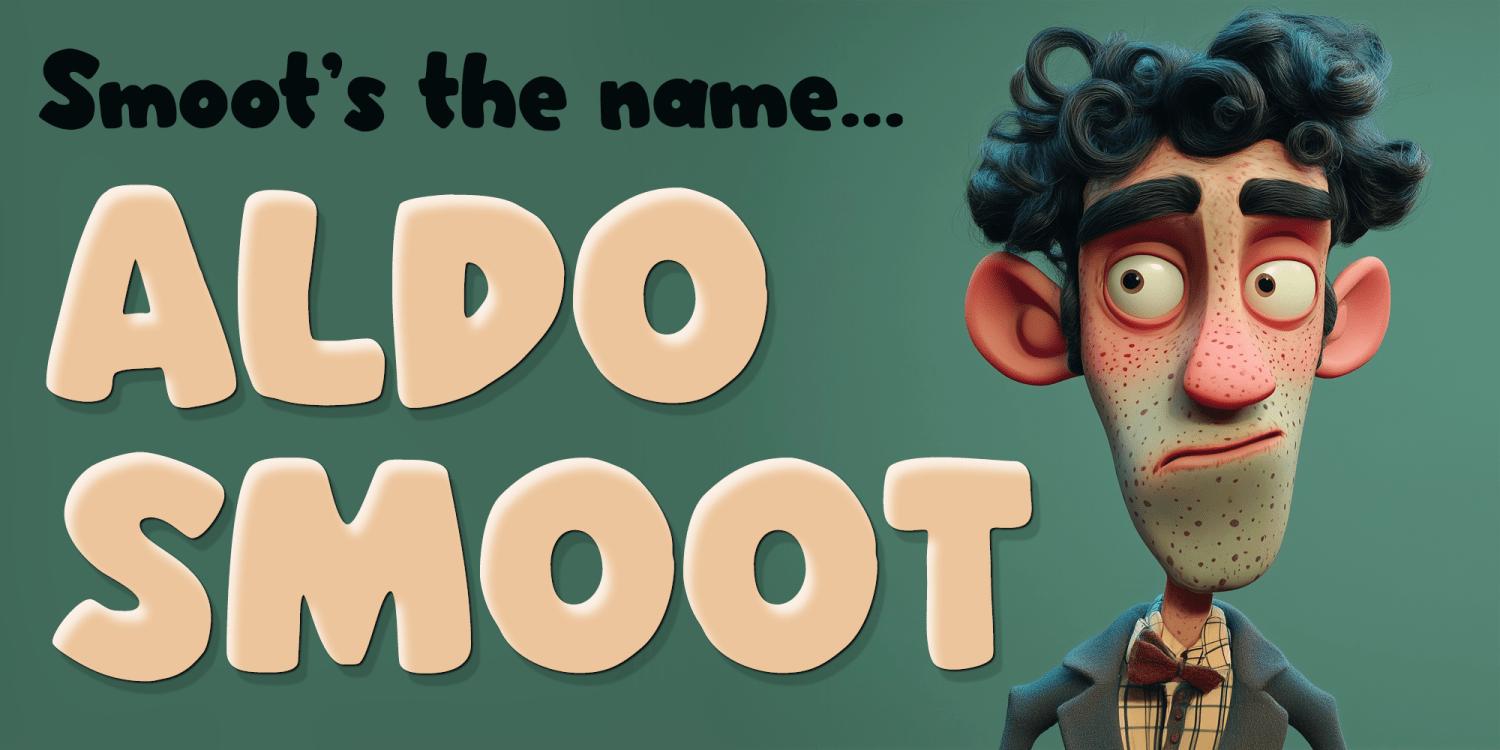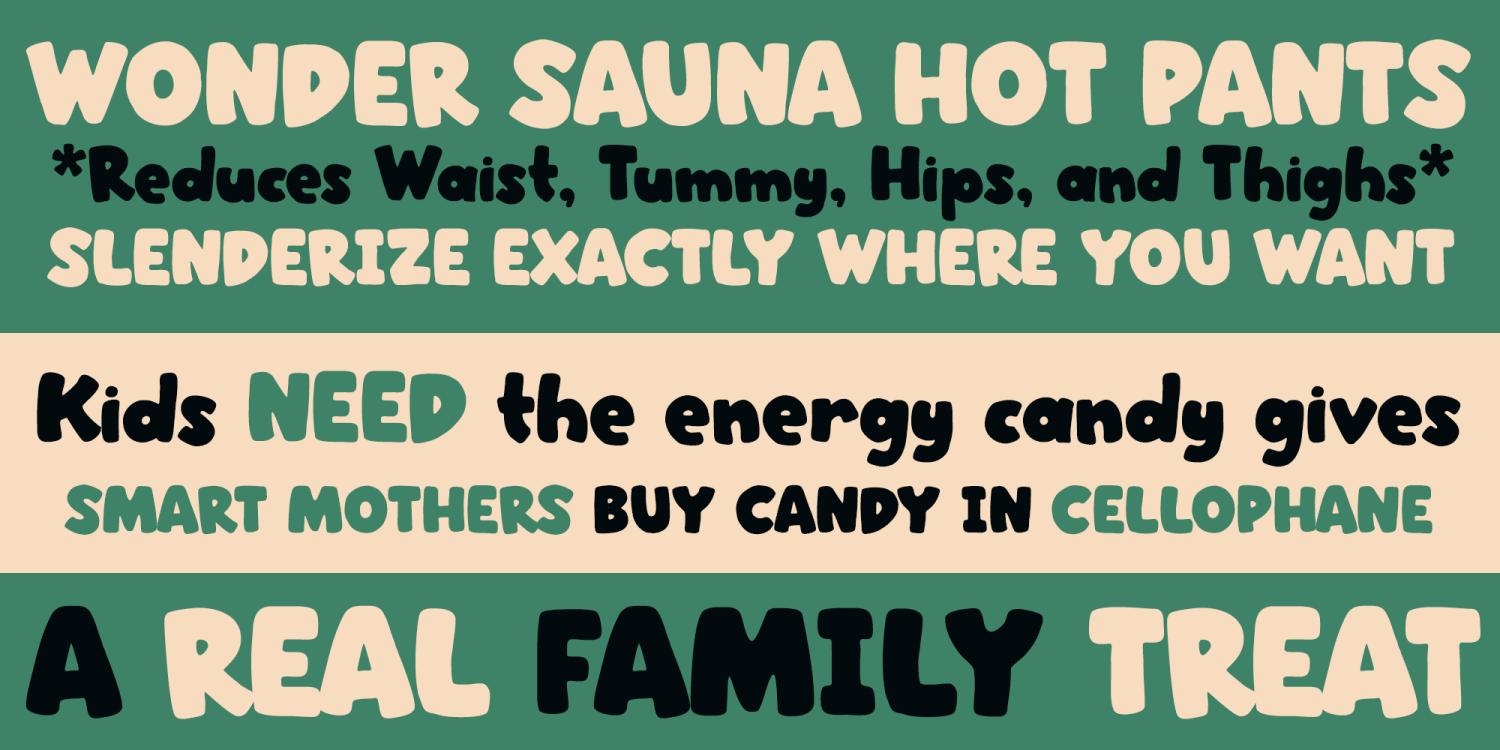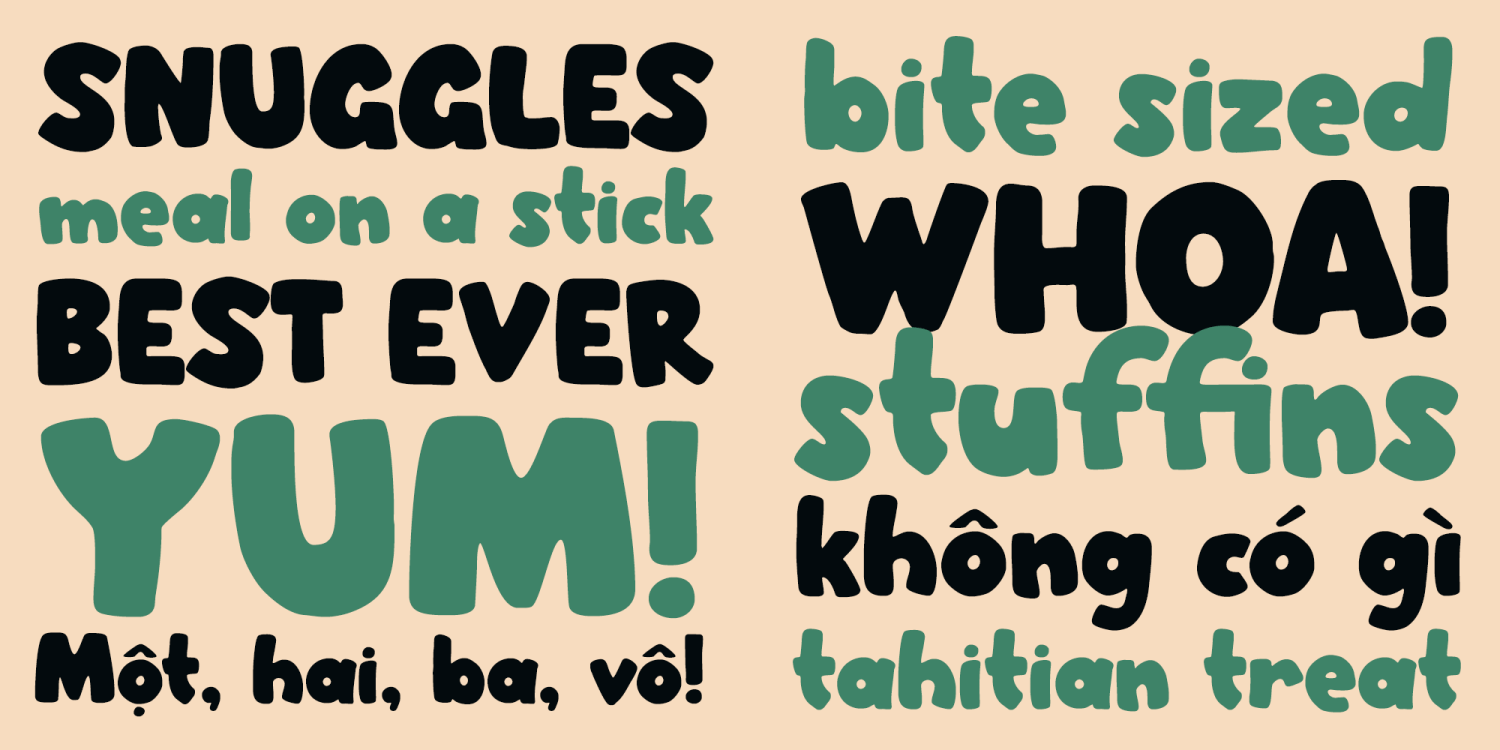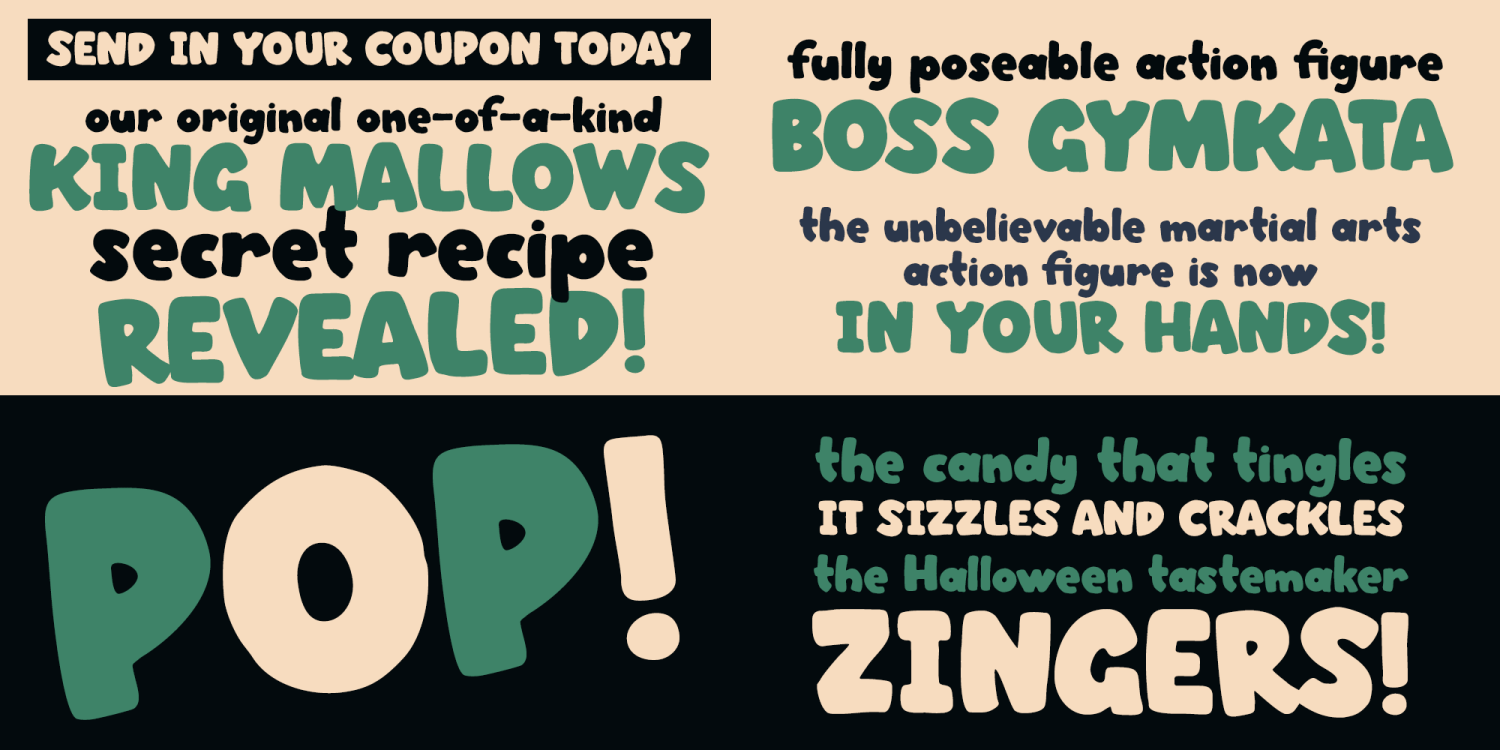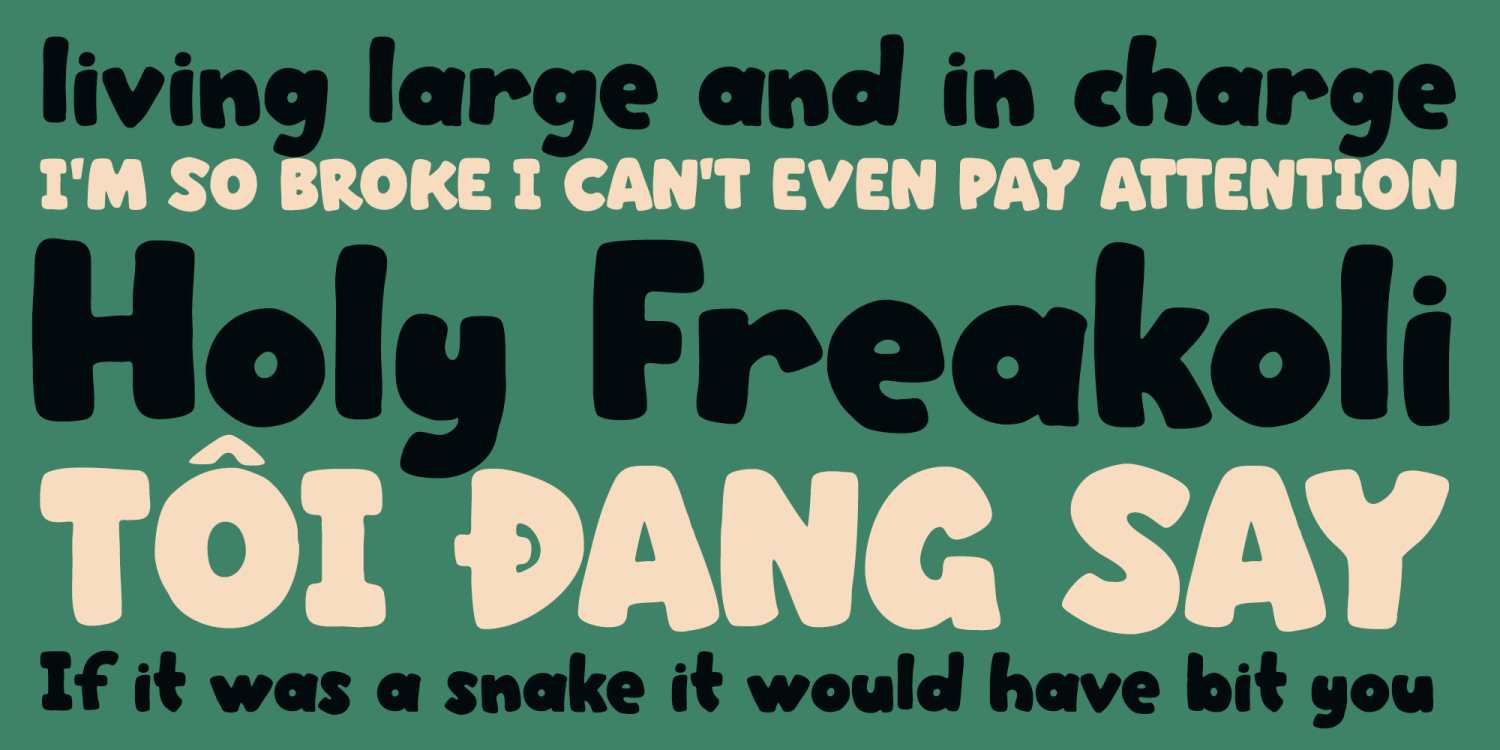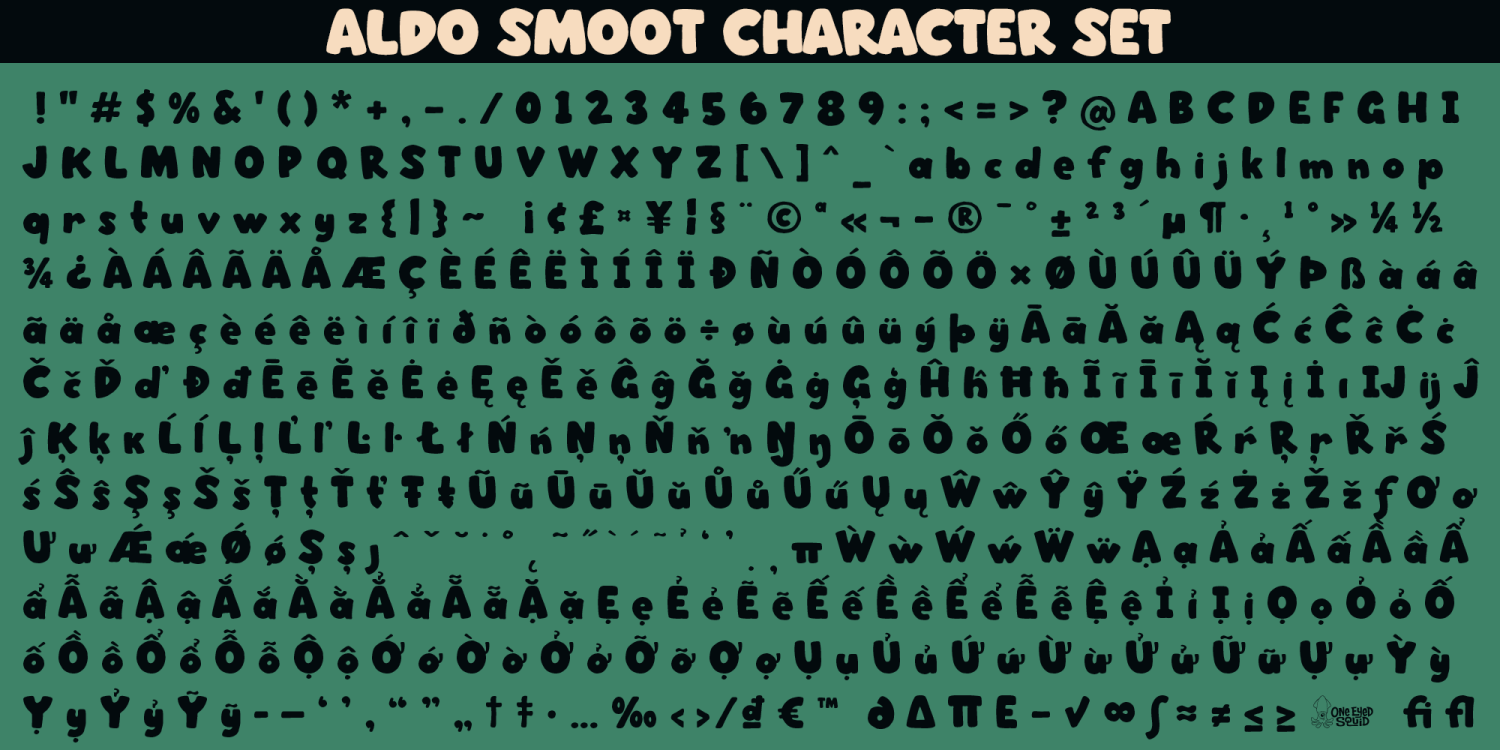
Aldo Smoot
Aldo Smoot is an awkwardly charming display font with a soft, cuddly personality and a warm, lighthearted voice. Its quirky letterforms feel approachable, friendly, and full of offbeat character, making it a strong choice for designs that want to feel wholesome, playful, and a little unconventional. Ideal for headlines, posters, branding, packaging, greeting cards, invitations, social media graphics, and other creative projects that benefit from a cheerful handmade feel, Aldo Smoot brings humor, warmth, and memorable personality to every layout. Includes extended Latin language support, including Vietnamese.
Aldo Smoot includes 482 glyphs.